Proportional Figures
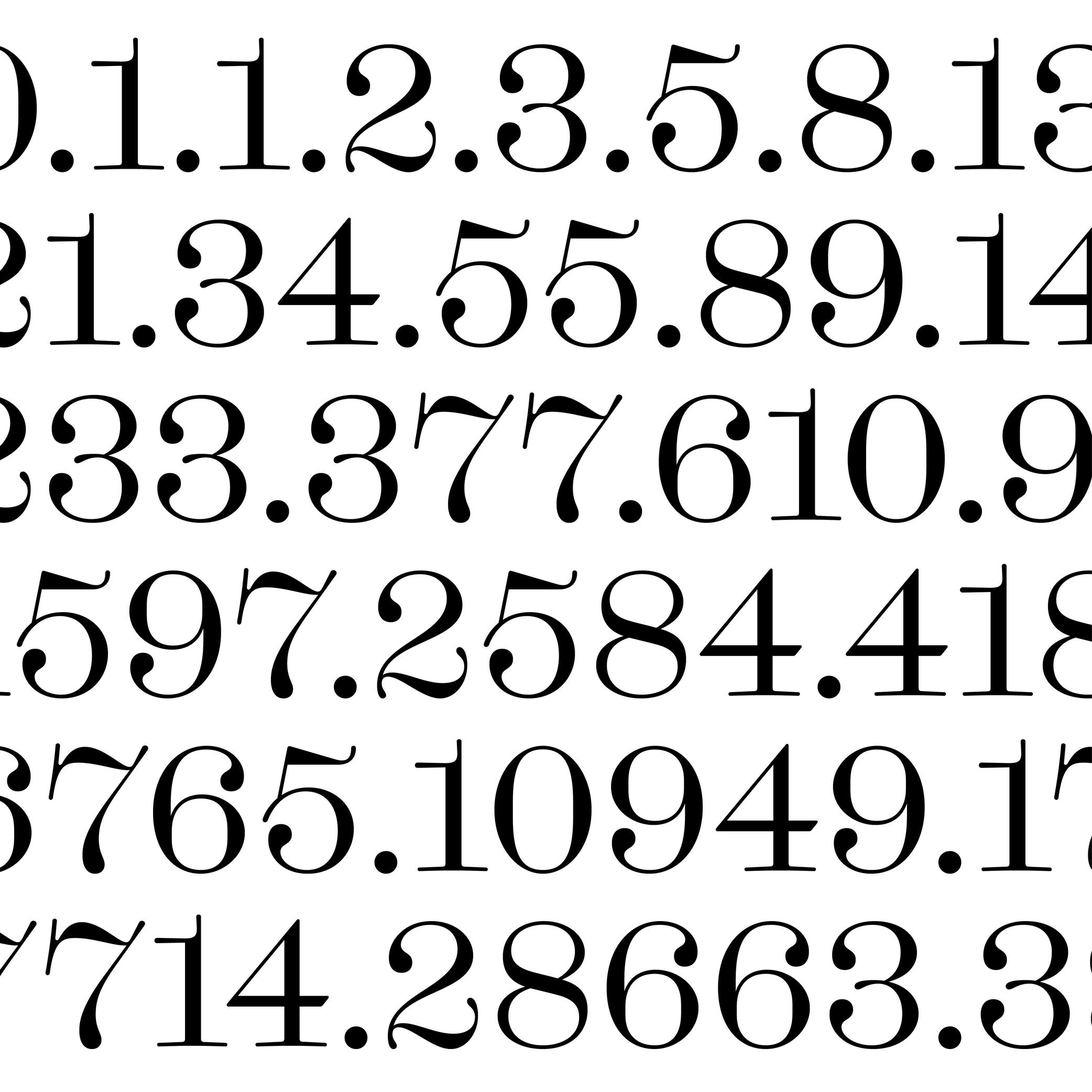
Sponsored by Dinamo . Typeface in use: Daily Scotch , designed by Fabian Harb and Michelangelo Nigra, 2024.
Proportional figures in a typeface are designed with different widths, same for oldstyle figures, each one adapted to the forms of the figure in order to have balanced proportions.
For example, 1 would have a narrower width than 3.
OPENTYPE FEATURE NAME
PROPORTIONAL FIGURES: .pnum